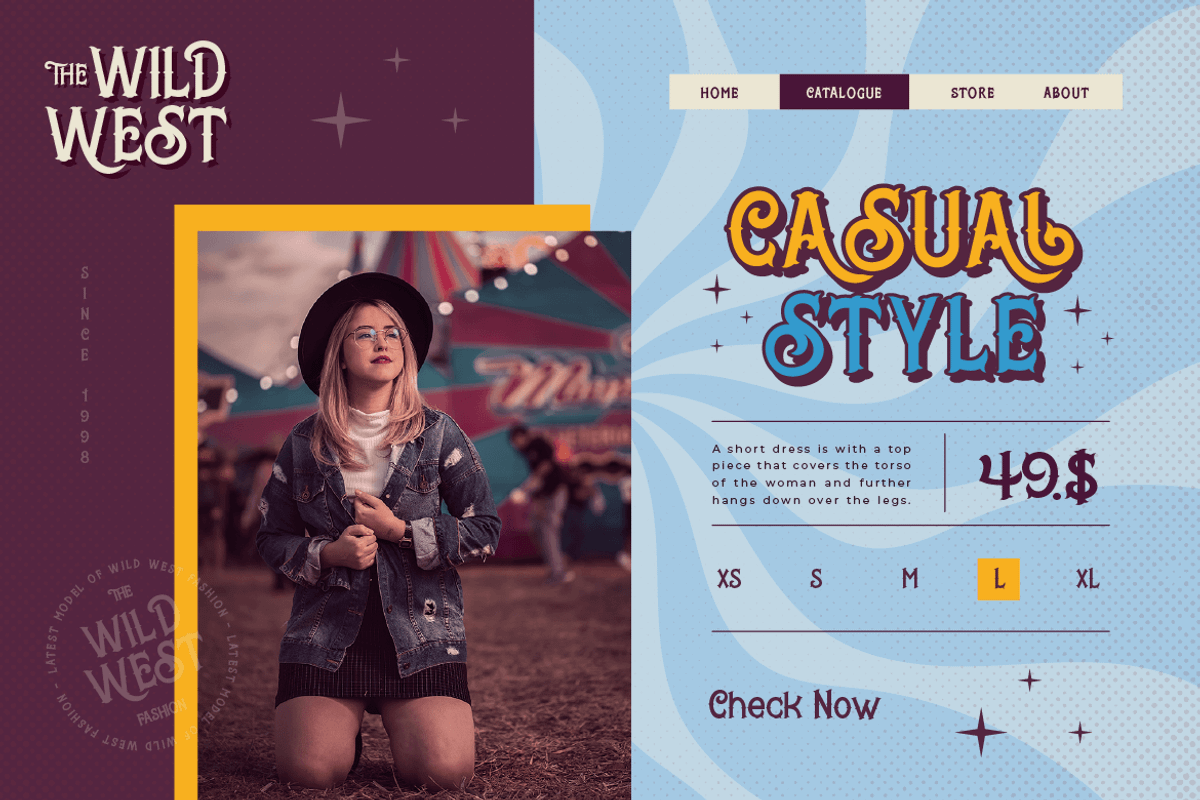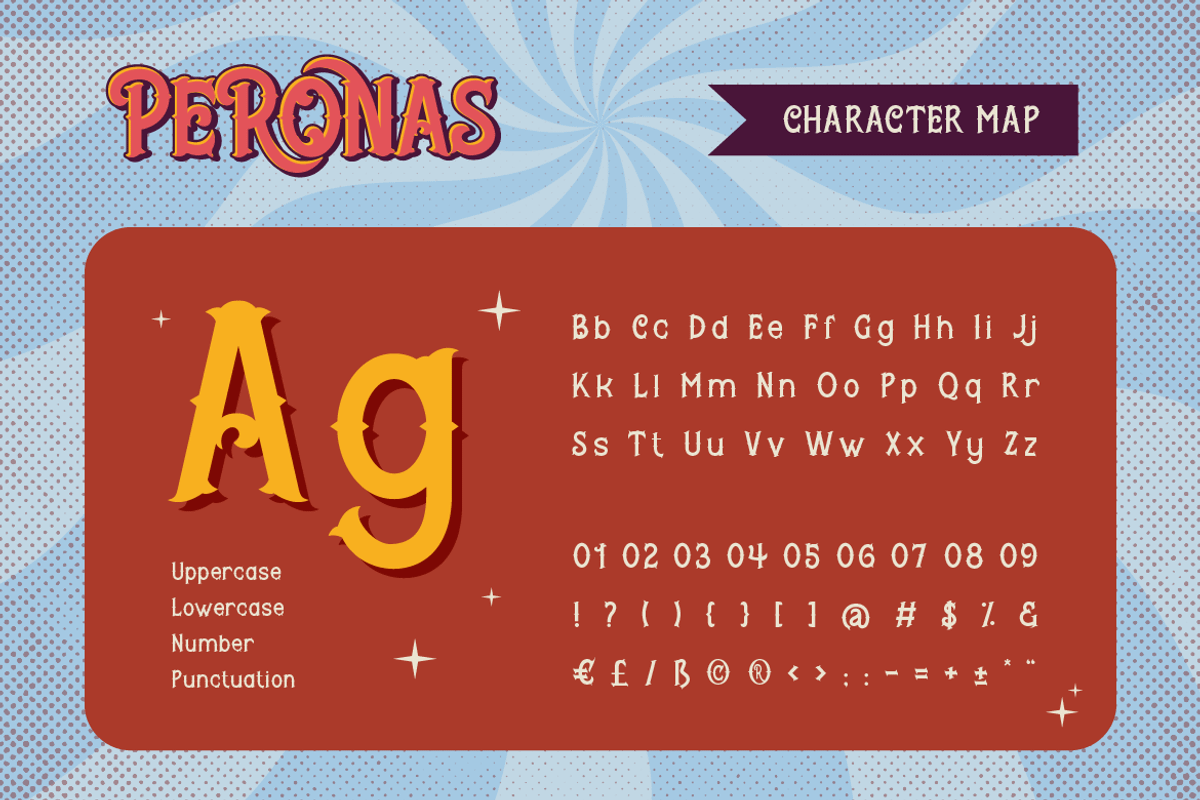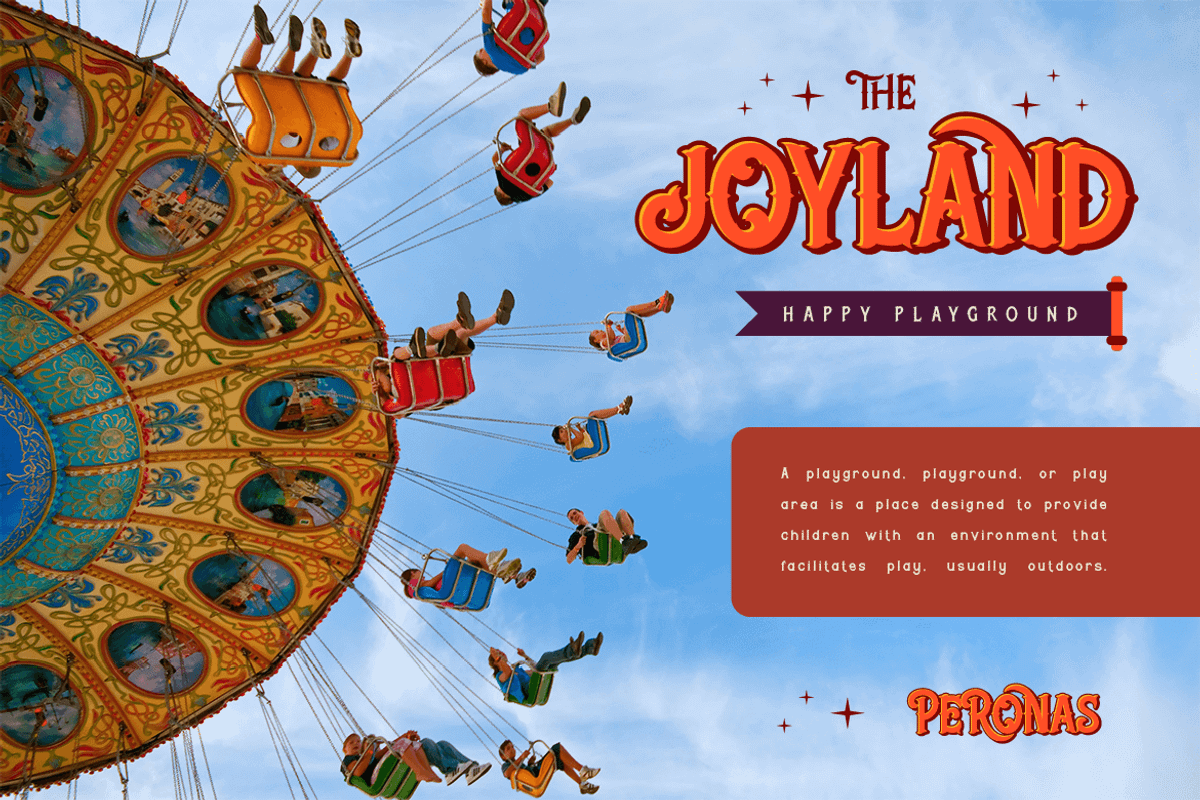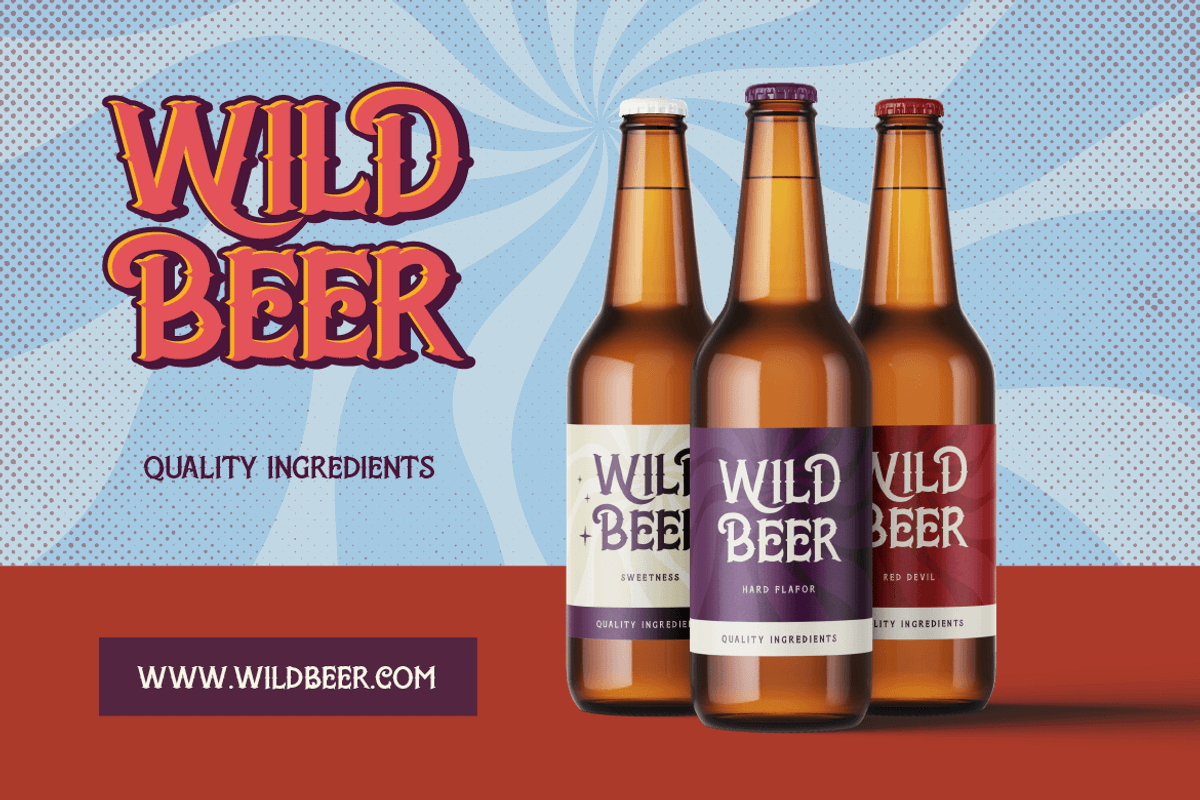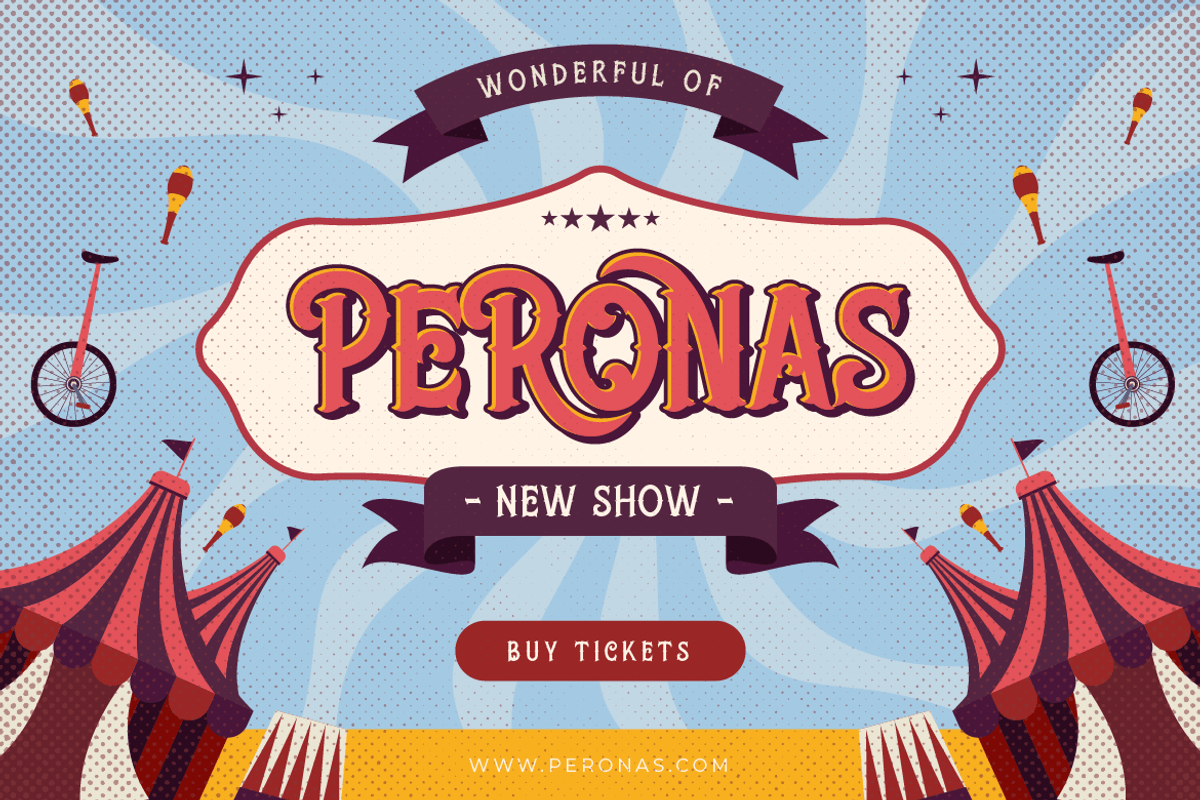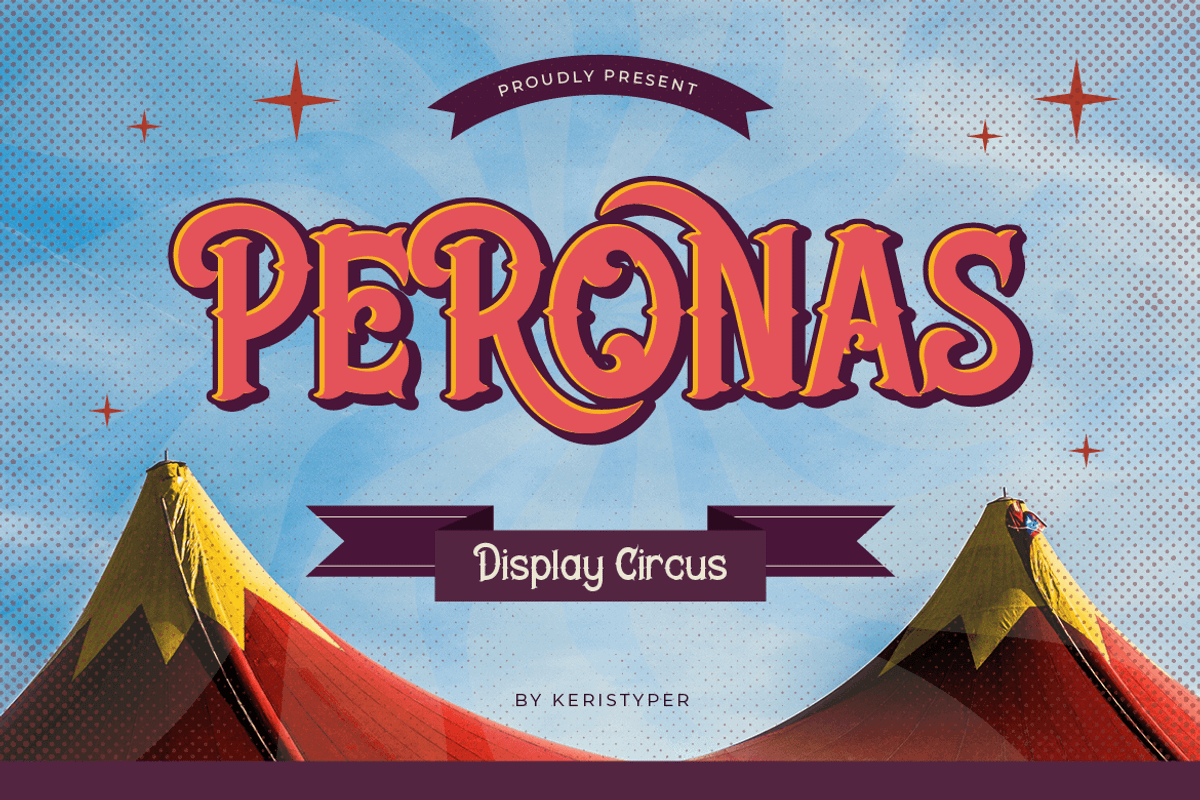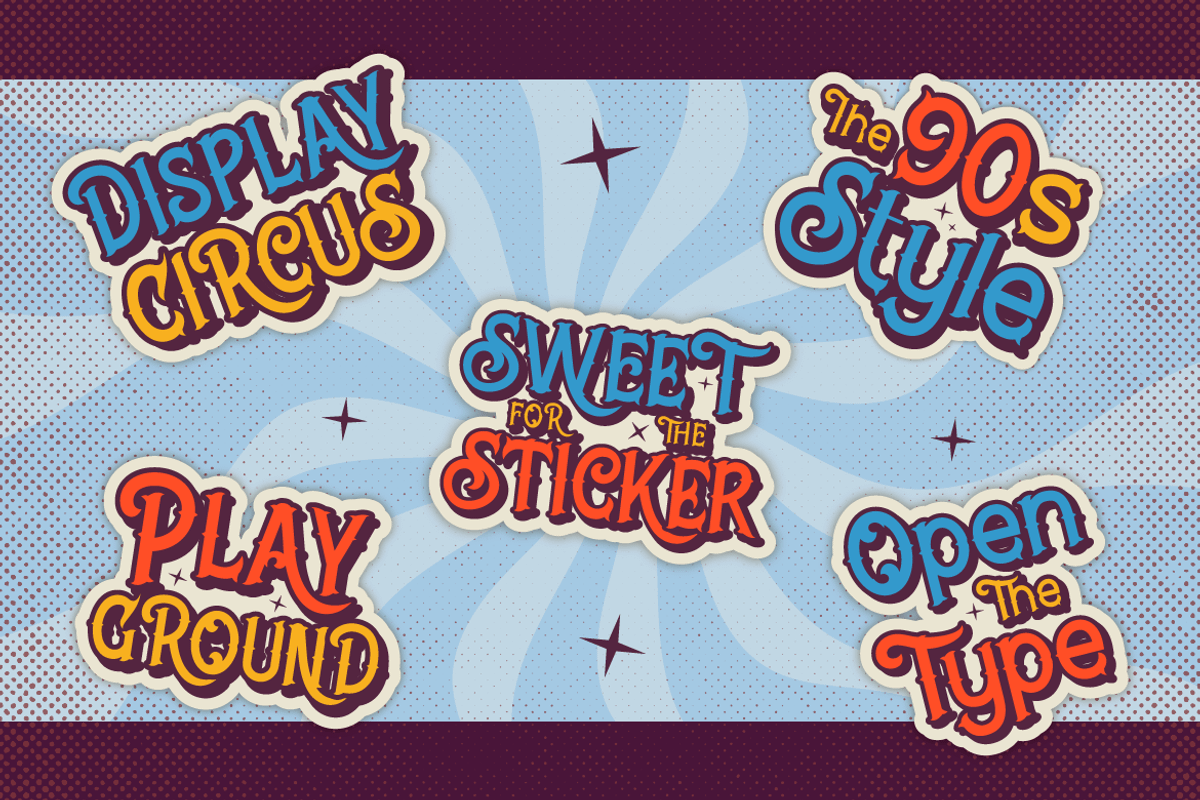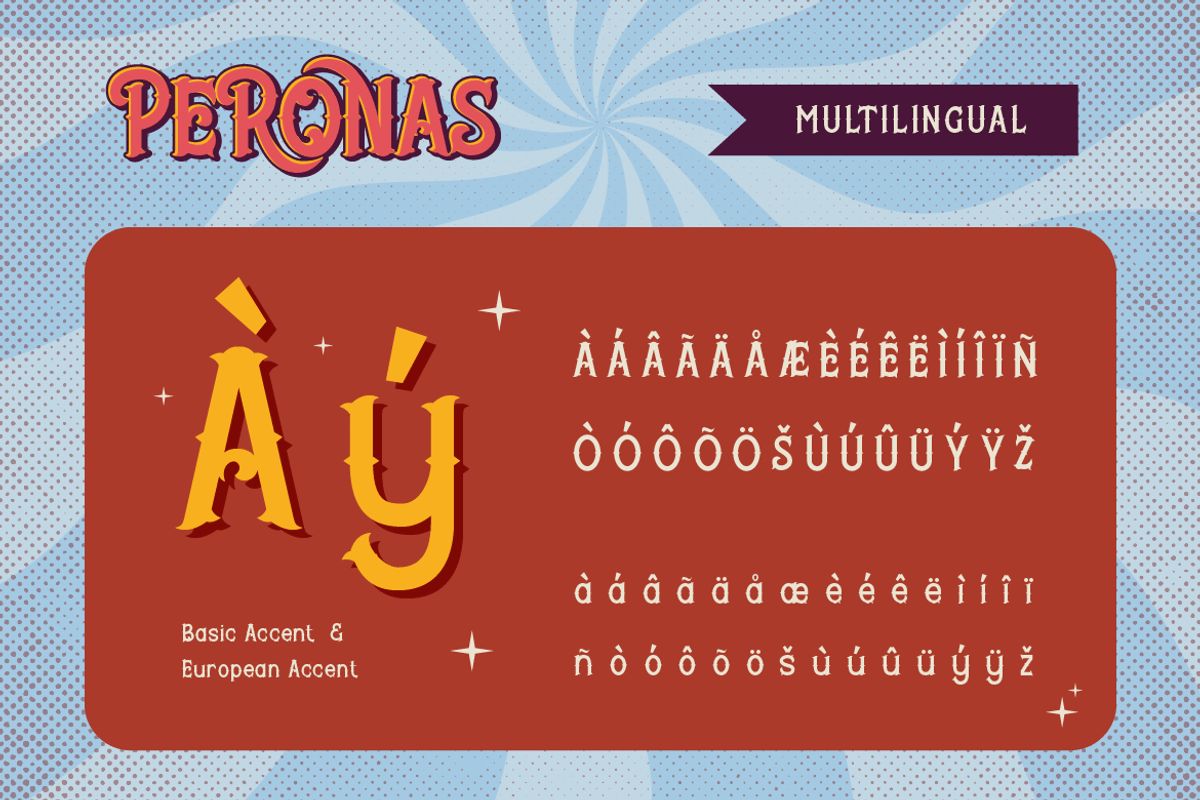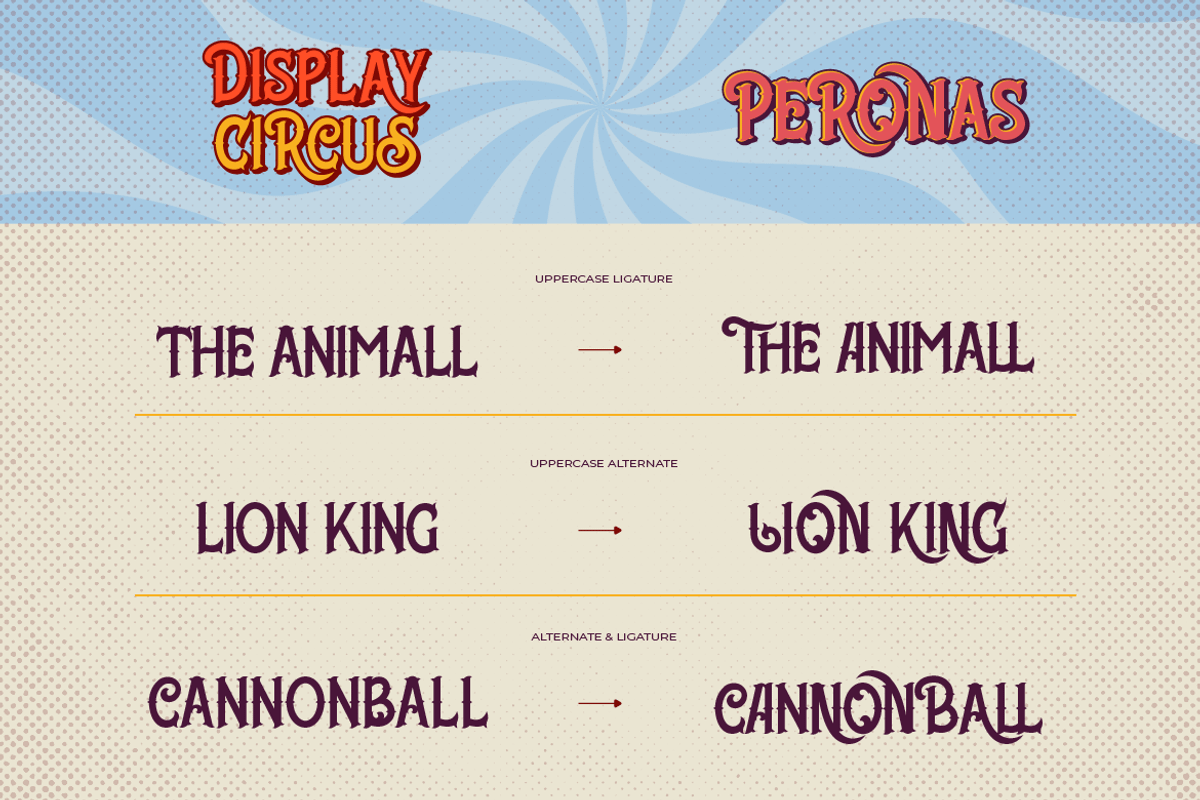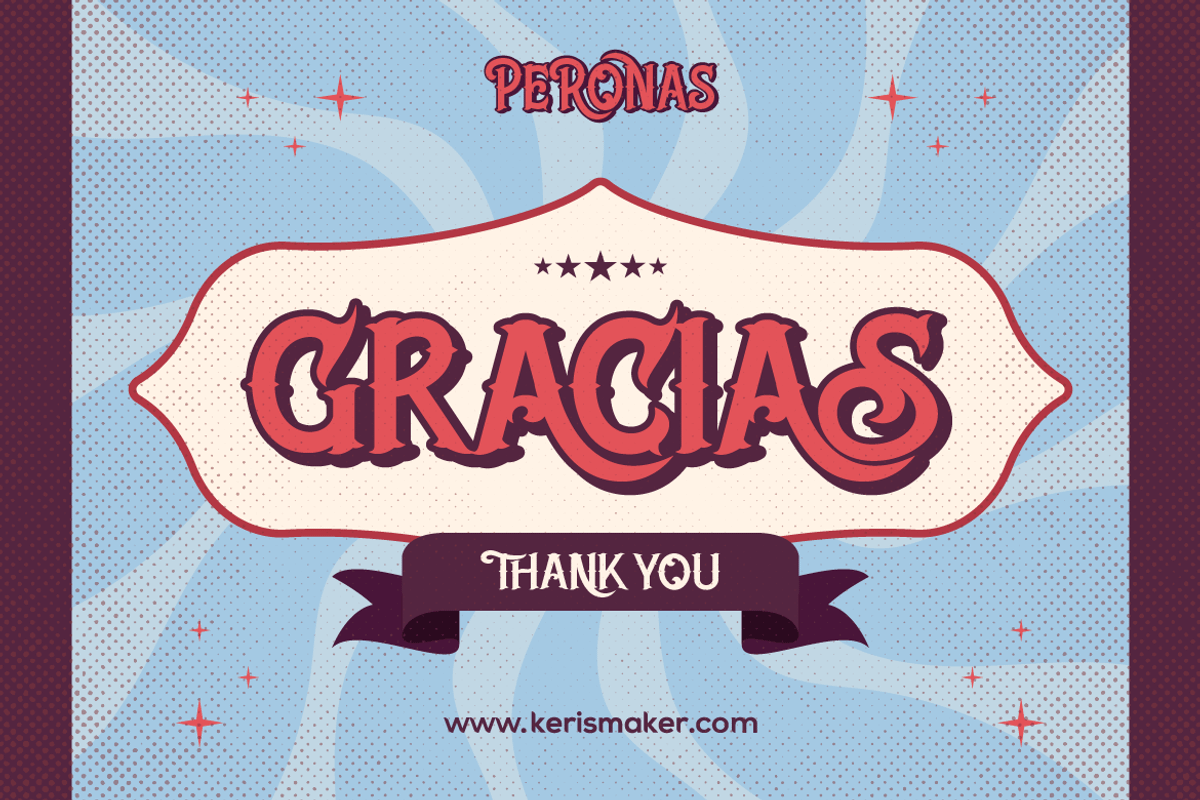
Peronas
Proudly present Peronas a new display font Inspired by American circus and carnival typography. This font is good for logo design, Social media, Movie Titles, Books Titles, short text even long text letters, and good for your secondary text font with the script, sans, or serif.
Featured:
- Standard Uppercase & Lowercase
- Multilingual : ä ö ü Ä Ö Ü ß ¿ ¡
- Alternate & Ligature